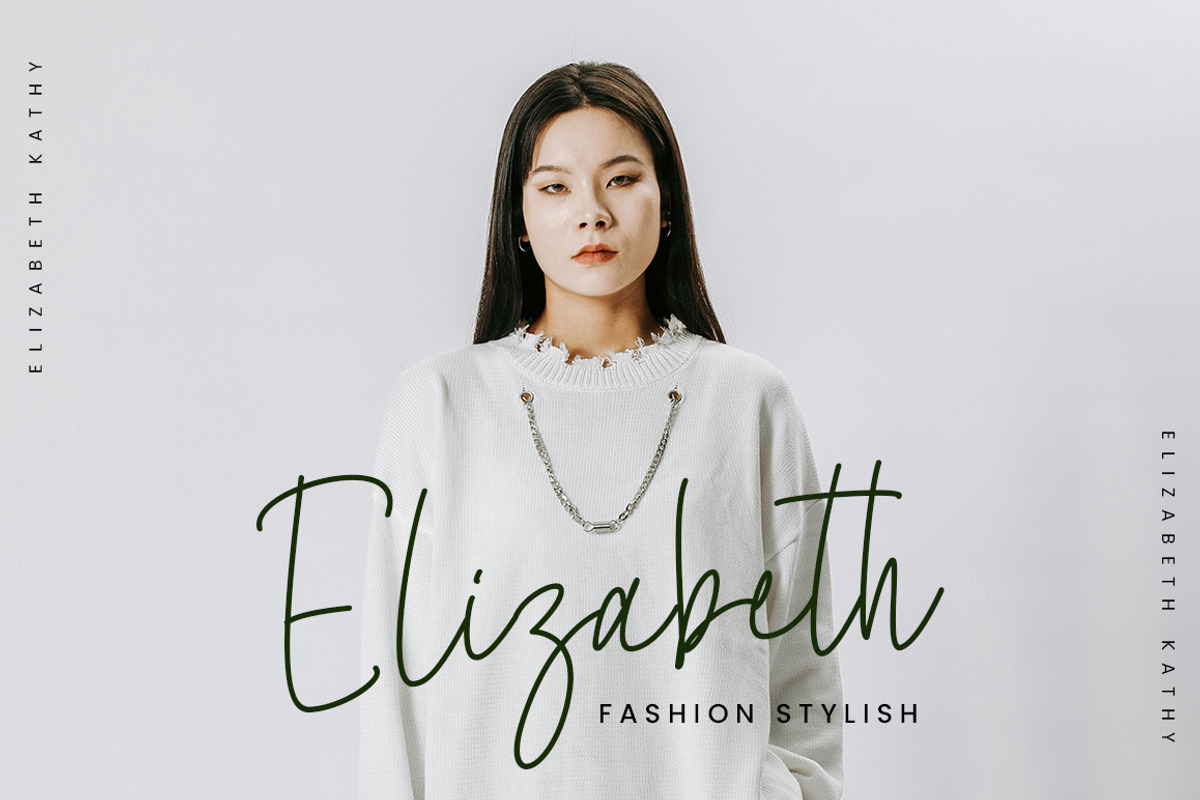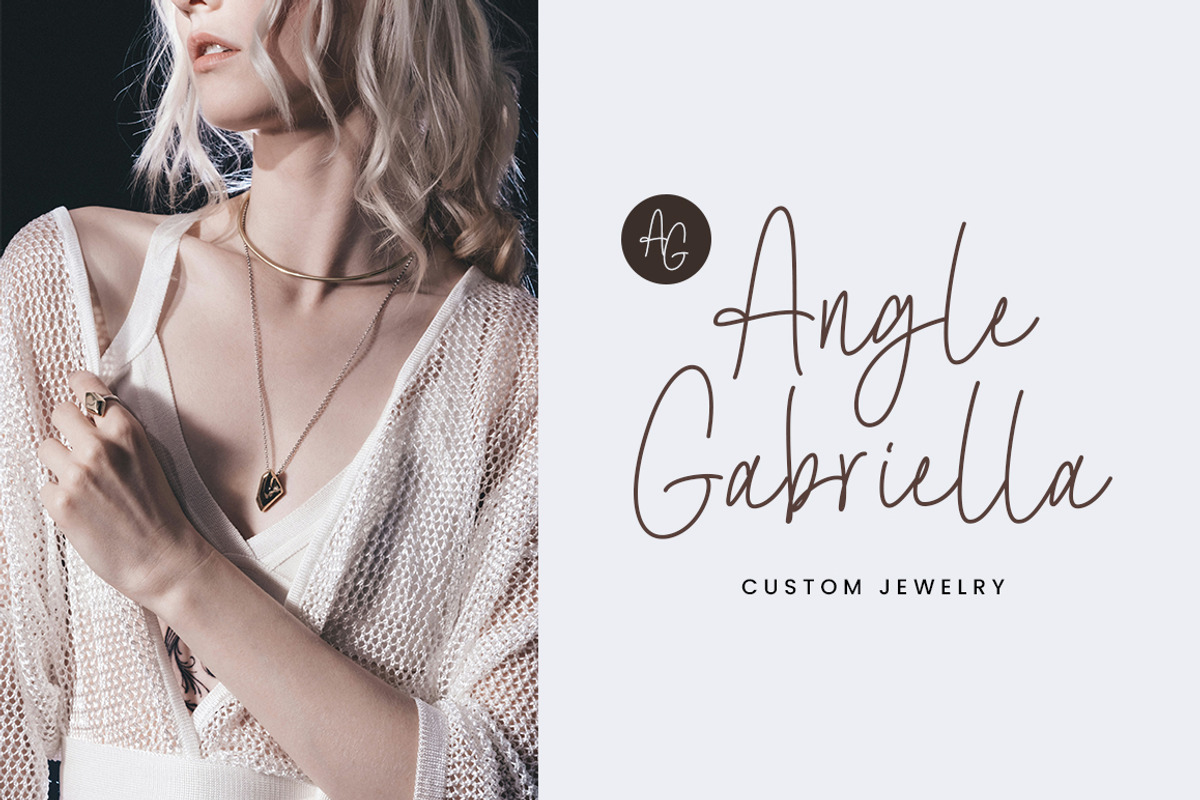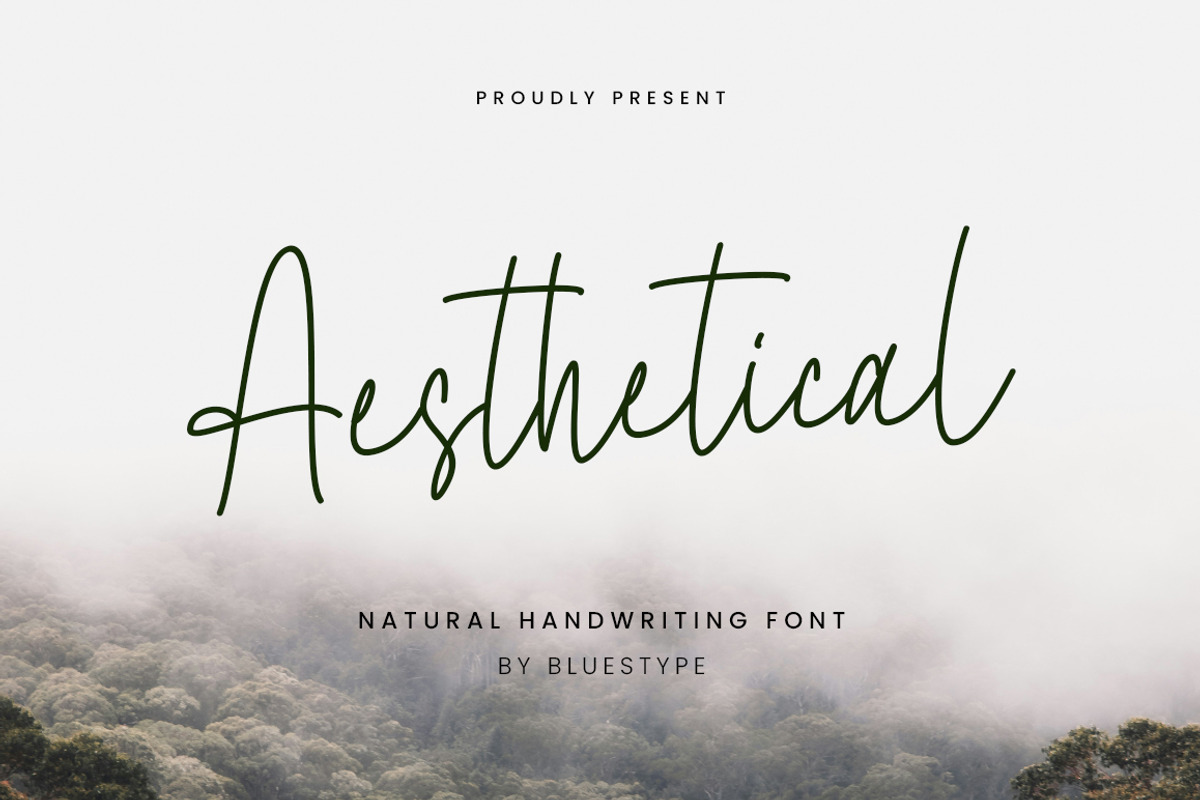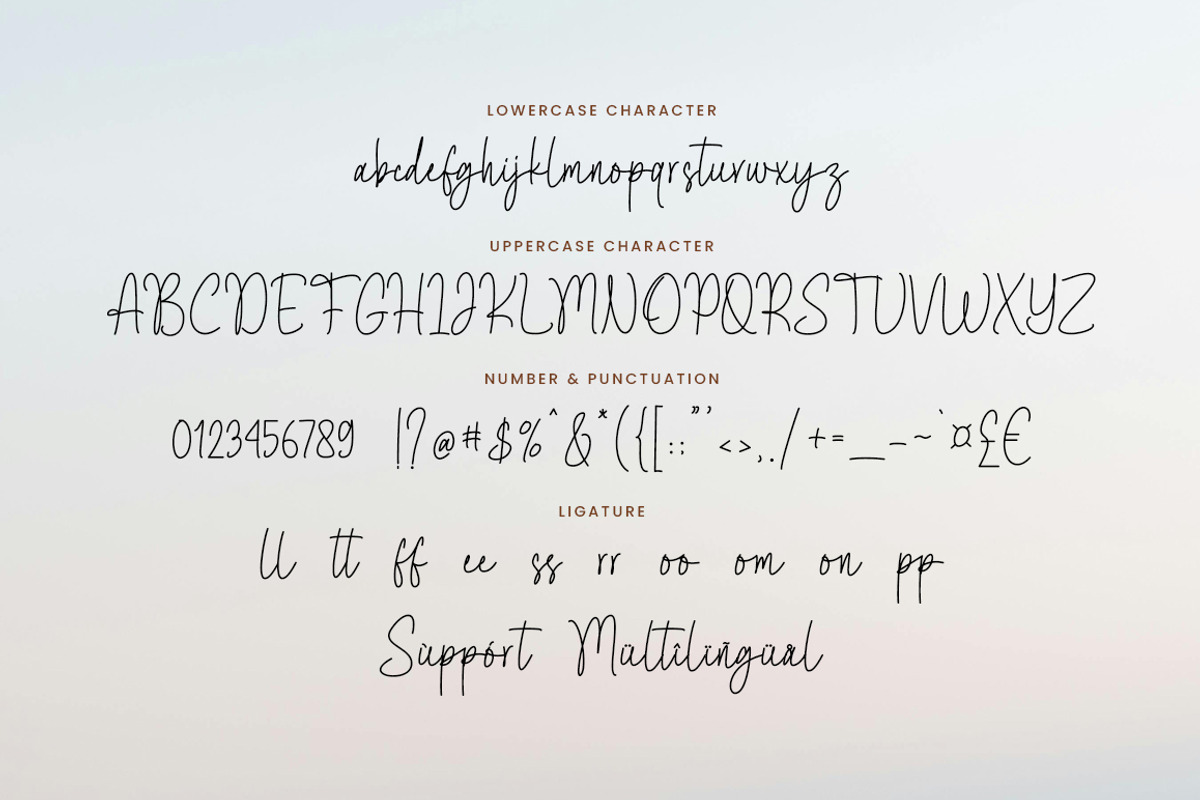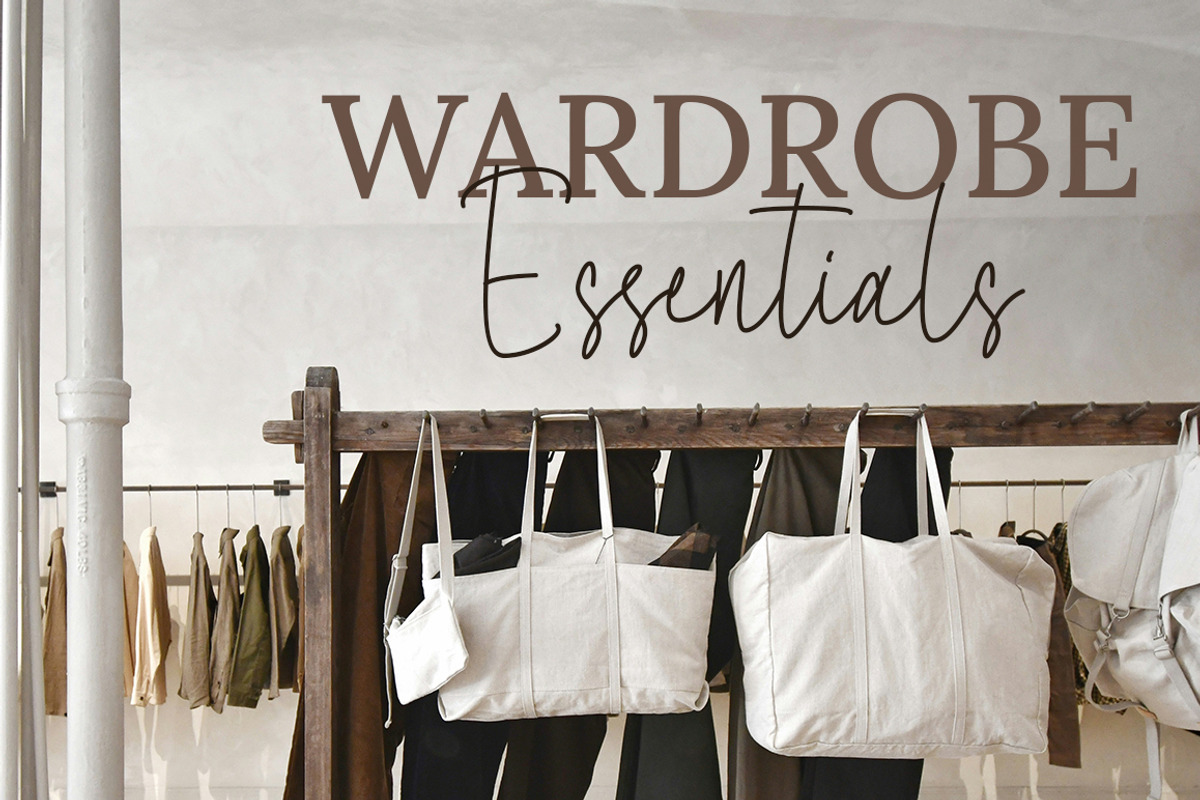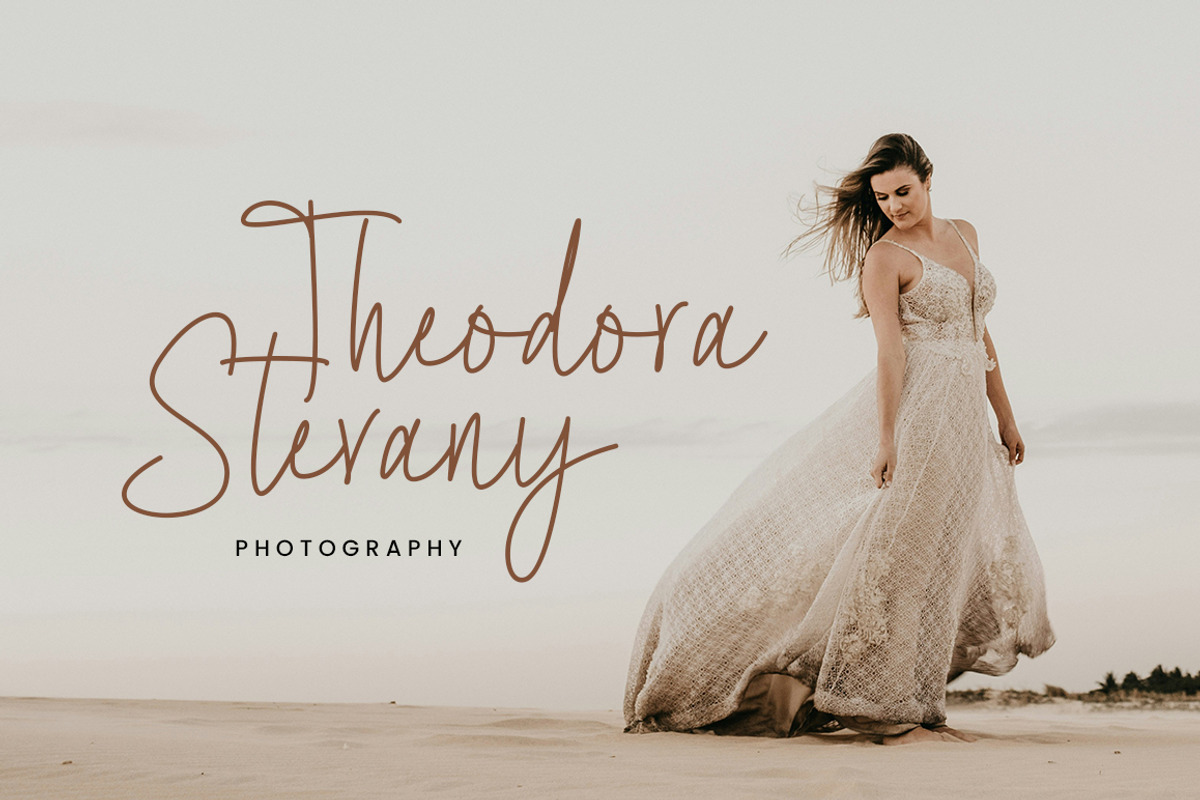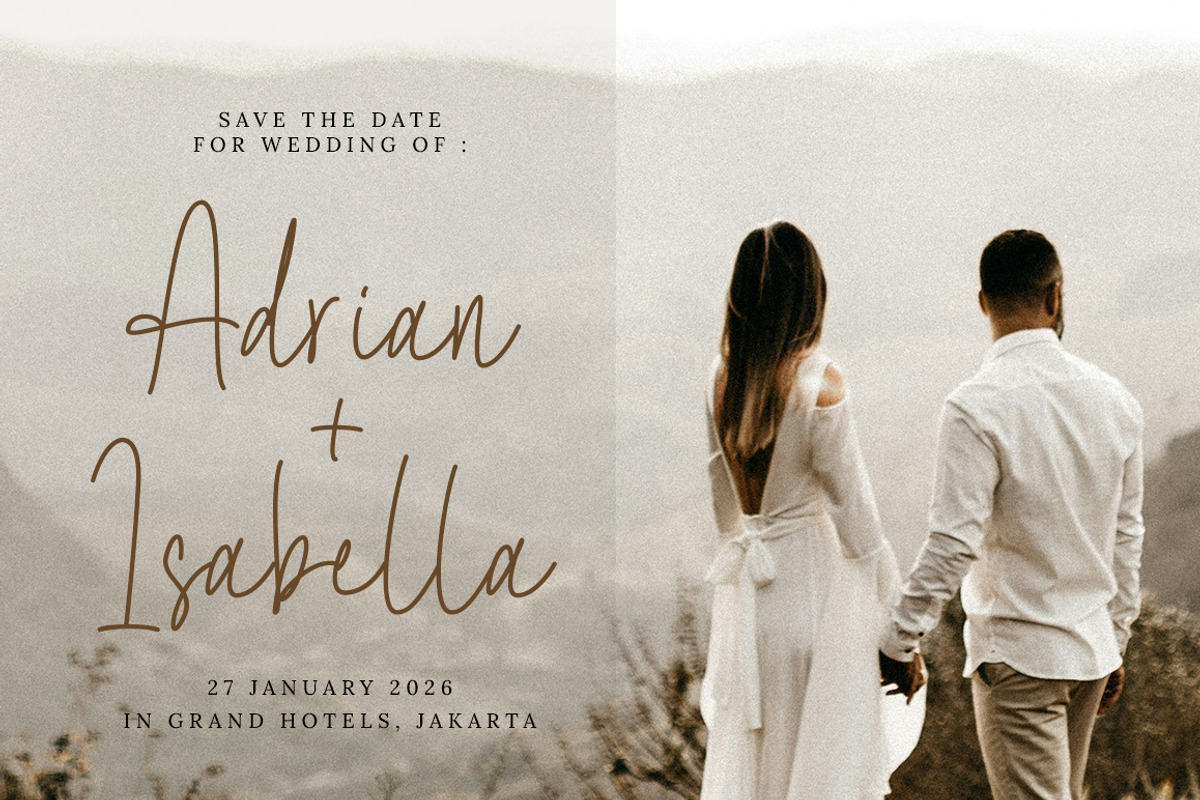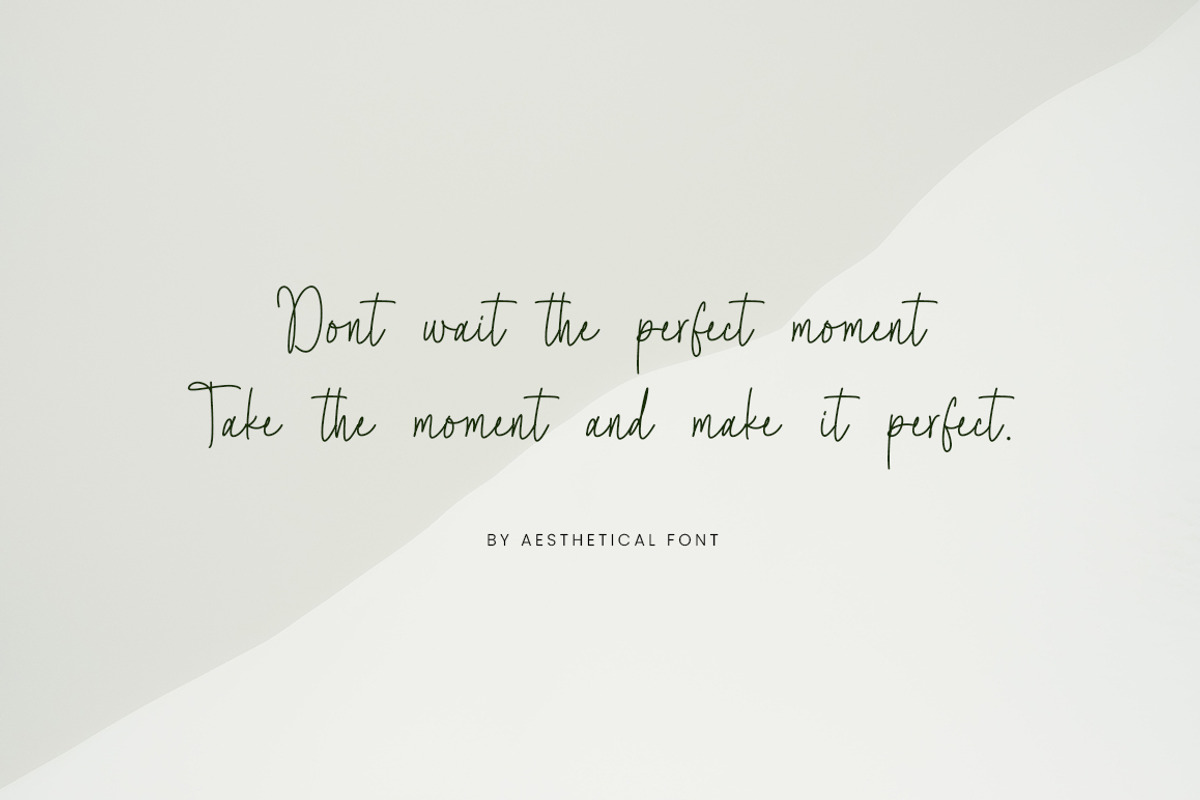
Aesthetical - Natural Handwritten
Introducing Aesthetical - Natural Handwritten Font
Aesthetical is a stunning handwritten font that captures the beauty in every stroke. Carefully crafted with love and attention to detail, Aesthetical brings an elegant and charming touch to every word
It's the perfect choice for projects that seek a graceful, feminine, and aesthetically pleasing vibe—whether it’s wedding invitations, branding logos, inspirational quotes, or product packaging that stands out.
- Support Multilingual